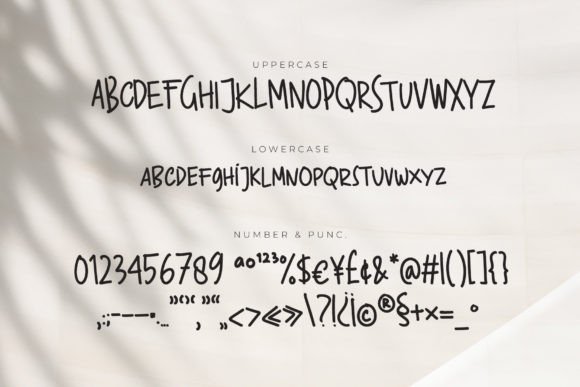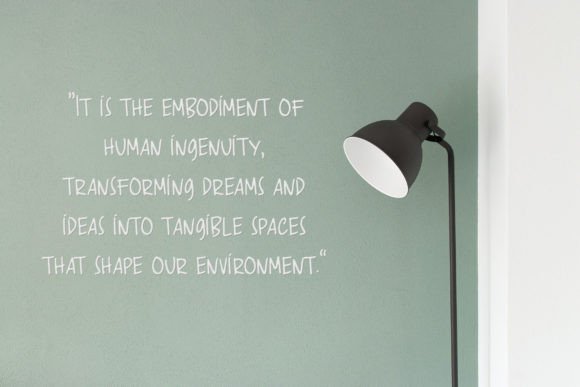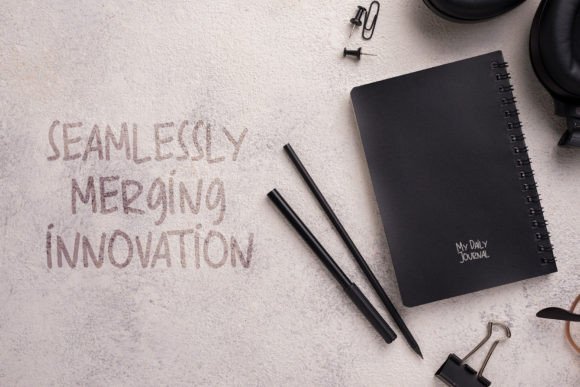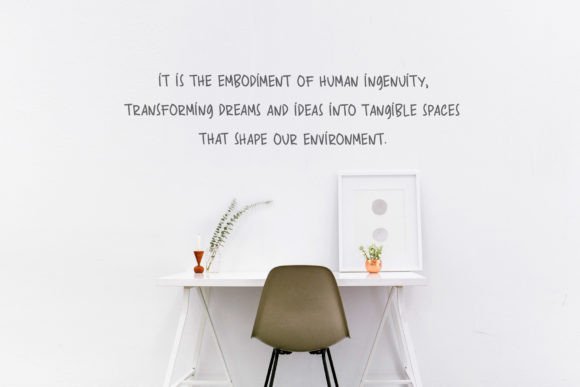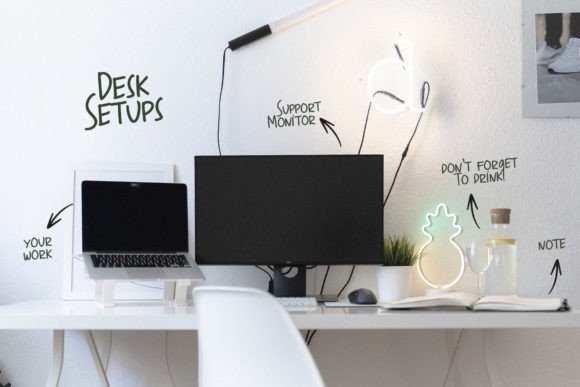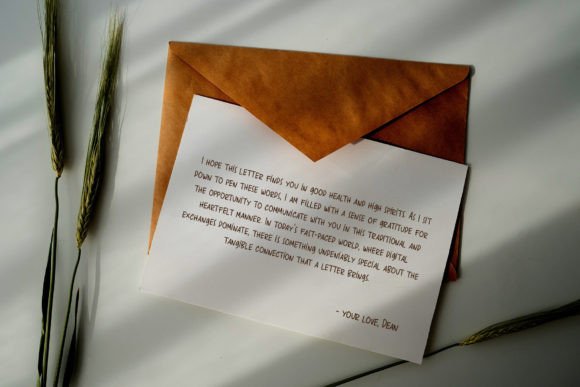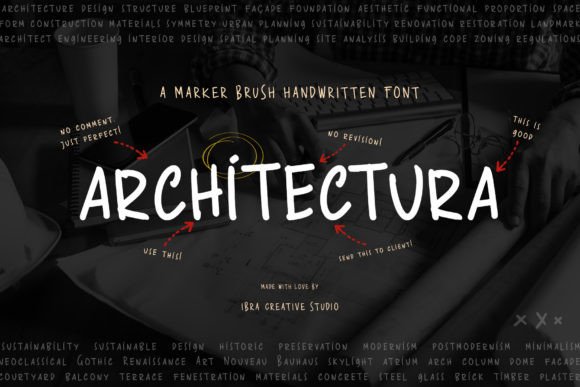
Introducing Architectura Font: Elevate Your Architectural Designs with Style and Sophistication
In the world of architecture, presentation is everything. The way you showcase your designs, proposals, and portfolios can make all the difference in capturing the attention of clients, stakeholders, and peers. That’s where the Architectura font comes in – a stunning, handwritten brush font specifically crafted for the architectural community. With its bold strokes, dynamic letterforms, and unique character, Architectura is poised to revolutionize the way you present your architectural endeavors.
The Art of Architectural Typography
Typography plays a vital role in architectural design, as it can convey the tone, style, and personality of a project. The right font can elevate your work, making it more engaging, professional, and memorable. Architectura font is designed to do just that – to add a touch of creativity, sophistication, and expertise to your architectural presentations, proposals, and portfolios.
What Makes Architectura Font Stand Out?
Architectura font boasts several distinctive features that set it apart from other typefaces:
• Handwritten Brush Style: Architectura’s handwritten brush style gives it a unique, organic feel that’s reminiscent of traditional architectural drawings and sketches.
• Bold Strokes: The font’s bold strokes add a sense of confidence and professionalism to your designs, making them more impactful and engaging.
• Dynamic Letterforms: Architectura’s letterforms are carefully crafted to convey a sense of movement and energy, reflecting the dynamic nature of architectural design.
• High Versatility: This font is suitable for a wide range of applications, from architectural presentations and project proposals to design portfolios and marketing materials.
How to Use Architectura Font in Your Architectural Projects
Architectura font can be used in various ways to enhance your architectural projects:
• Headings and Titles: Use Architectura as a headline font to grab attention and make a lasting impression.
• Body Text: Employ Architectura as a body font to add a touch of personality and style to your written content.
• Branding and Marketing: Utilize Architectura in your branding and marketing materials, such as brochures, flyers, and business cards, to create a cohesive and professional visual identity.
Benefits of Using Architectura Font
By incorporating Architectura font into your architectural projects, you can:
• Enhance Your Professional Image: Architectura’s sophisticated and stylish design helps you present yourself as a creative, skilled, and detail-oriented architect.
• Increase Engagement: The font’s unique character and bold strokes capture attention and encourage readers to engage with your content.
• Streamline Your Workflow: With Architectura, you can create consistent, high-quality typography across various projects and applications, saving you time and effort.
Architectura font is a game-changer for architects, designers, and crafters looking to elevate their designs, presentations, and portfolios. Its captivating and stylish handwritten brush style, bold strokes, and dynamic letterforms make it an ideal choice for showcasing architectural endeavors. By incorporating Architectura into your workflow, you can enhance your professional image, increase engagement, and streamline your design process. Discover the power of Architectura font and take your architectural designs to new heights.